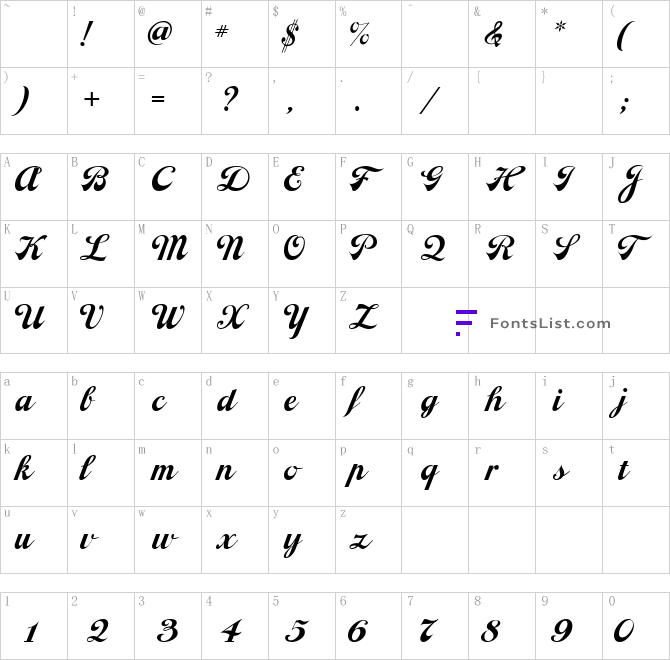
- Font Name:AL Softhearted
AL-Softhearted.ttf is a very beautiful artistic font, AL-Softhearted.ttf is widely used in the design and printing of various books and pictures,AL-Softhearted.ttf has a strong visual impact,AL-Softhearted.ttf is a commonly used font in newspapers, magazines and books, and is used in posters, e-commerce Poster design, store design, logo design, font design and other fields.AL-Softhearted.